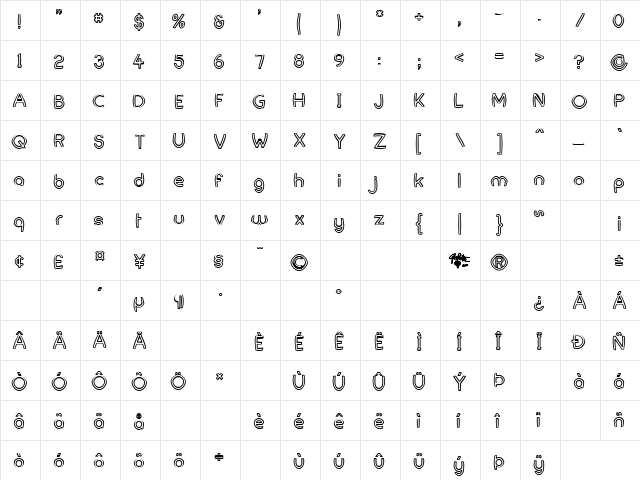
FortuneCity Comic Outline Regular
Design Context for FortuneCity Comic Outline Typeface
FortuneCity Comic Outline has an approachable, lighthearted character — its loose, expressive forms are well-suited to children's content, casual branding, and fun-first design.
Well-suited to food and beverage brands with personality, educational materials, and fun-forward identities.
Font Pairing: Pairs well with a rounded or humanist sans for body copy, maintaining the friendly tone without relying on FortuneCity Comic Outline to carry extended reading.
Pro Tip: Use FortuneCity Comic Outline at larger display sizes where its expressive character can land. Pair with a clean, simple sans for body copy to maintain readability.